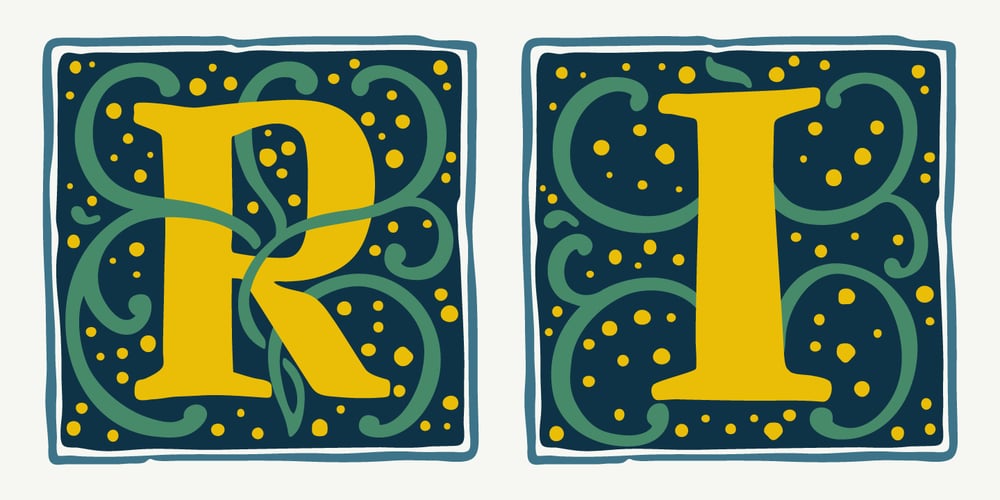
Renaissance Initial Font Family was designed by Roman Korolev and published by Kaer. Renaissance Initial contains 8 styles and family package options. This is a new classic Renaissance Initial font. Renaissance Initial font is perfect for premium design labels, medieval print, antique posters, etc. The fonts are presented in usual and color versions.Only uppercase letters from A to Z and numbers set (36 characters)